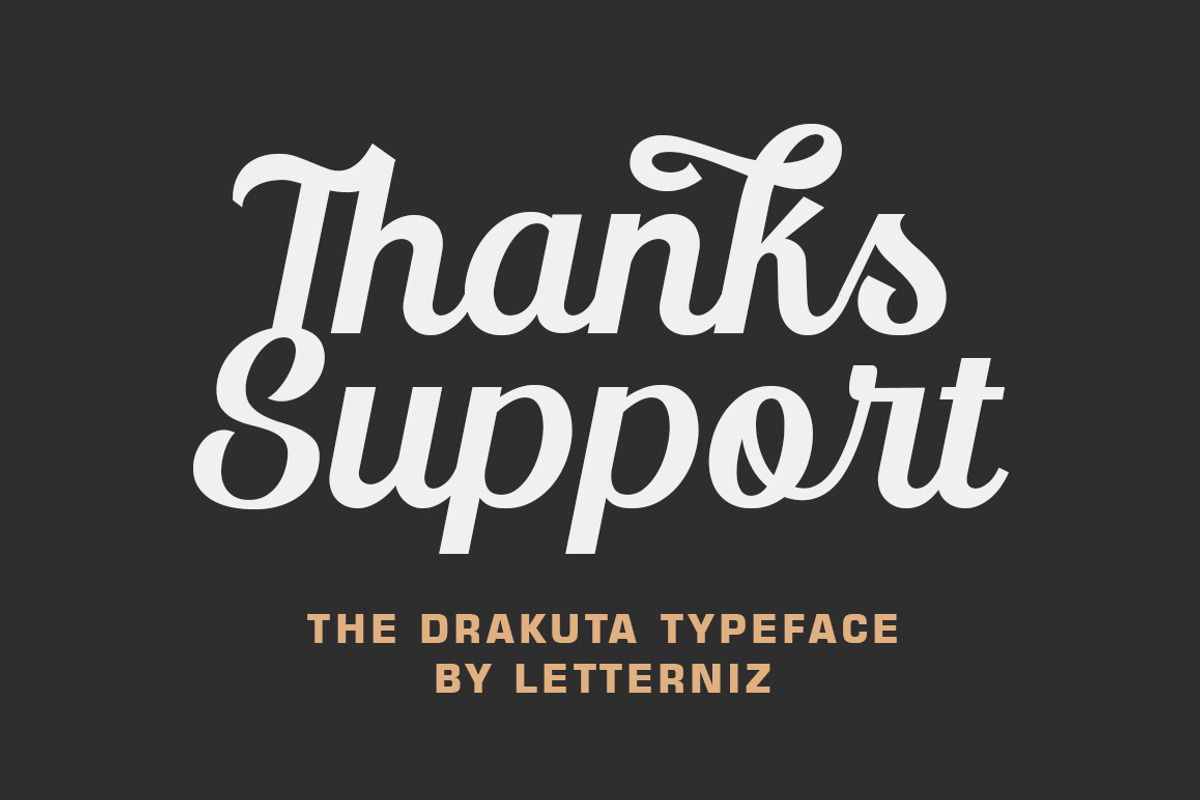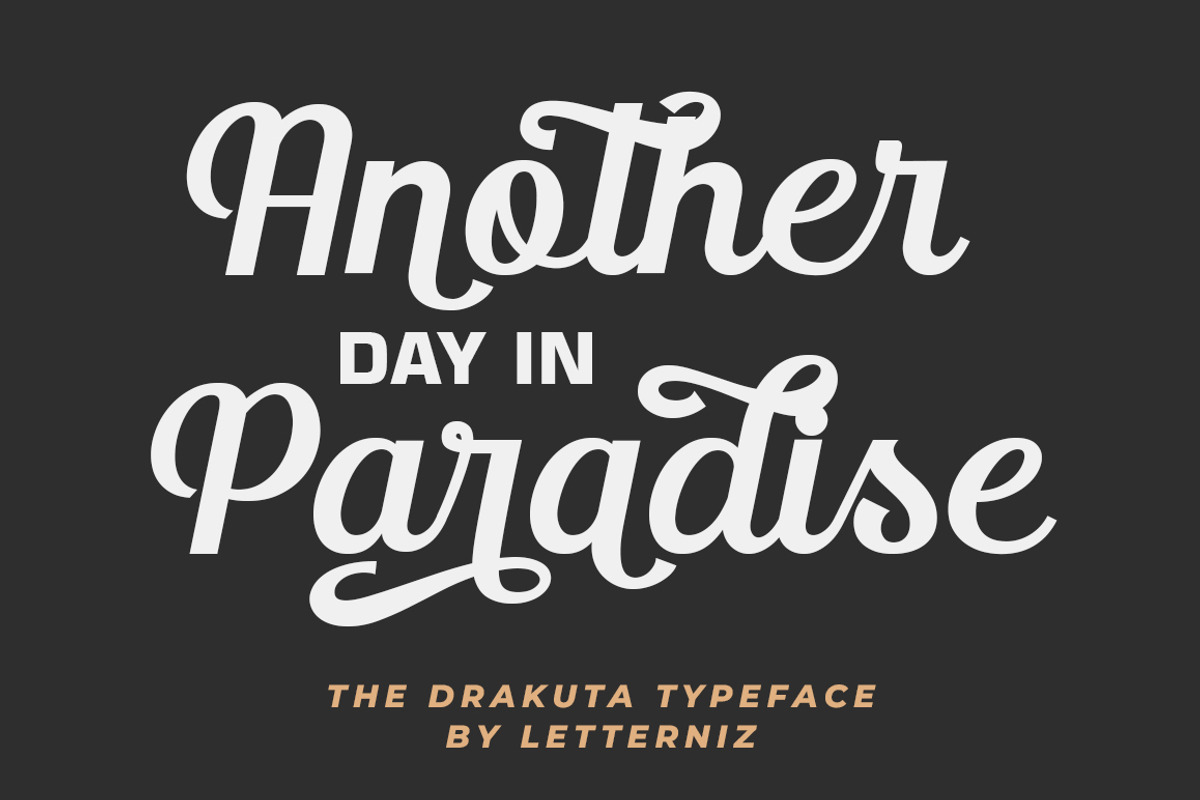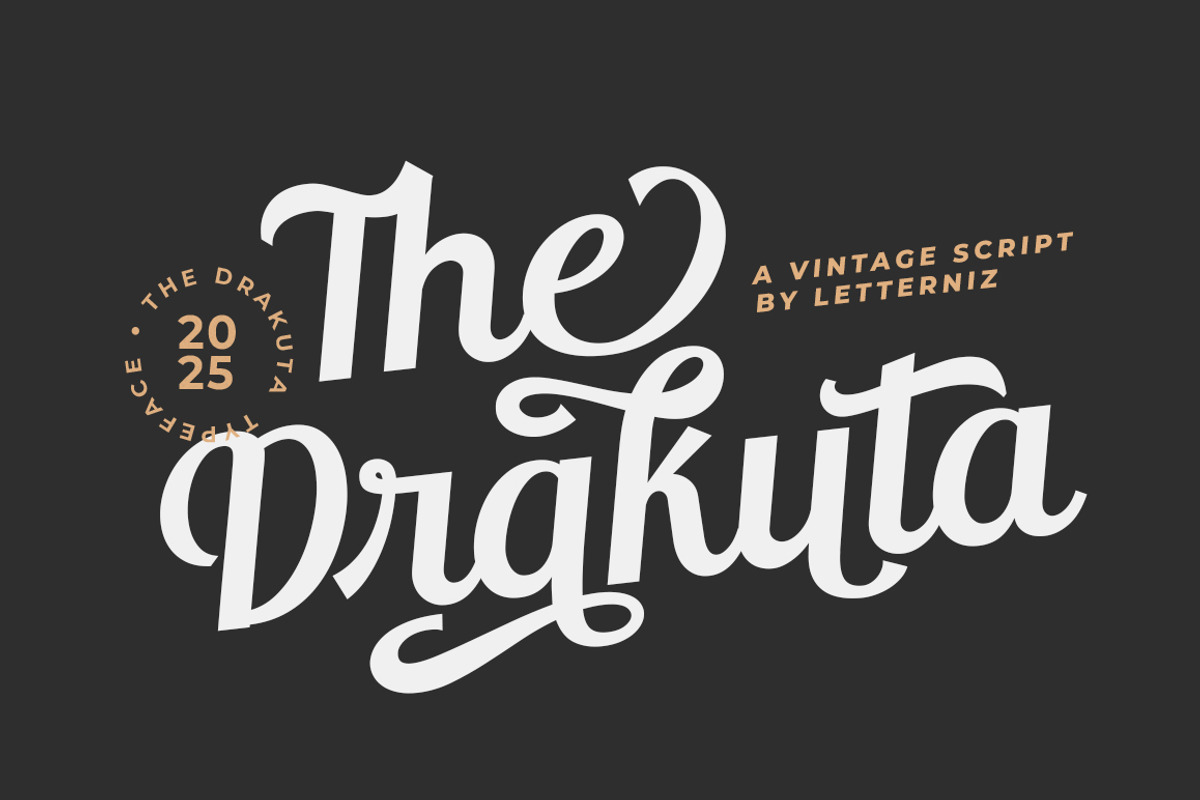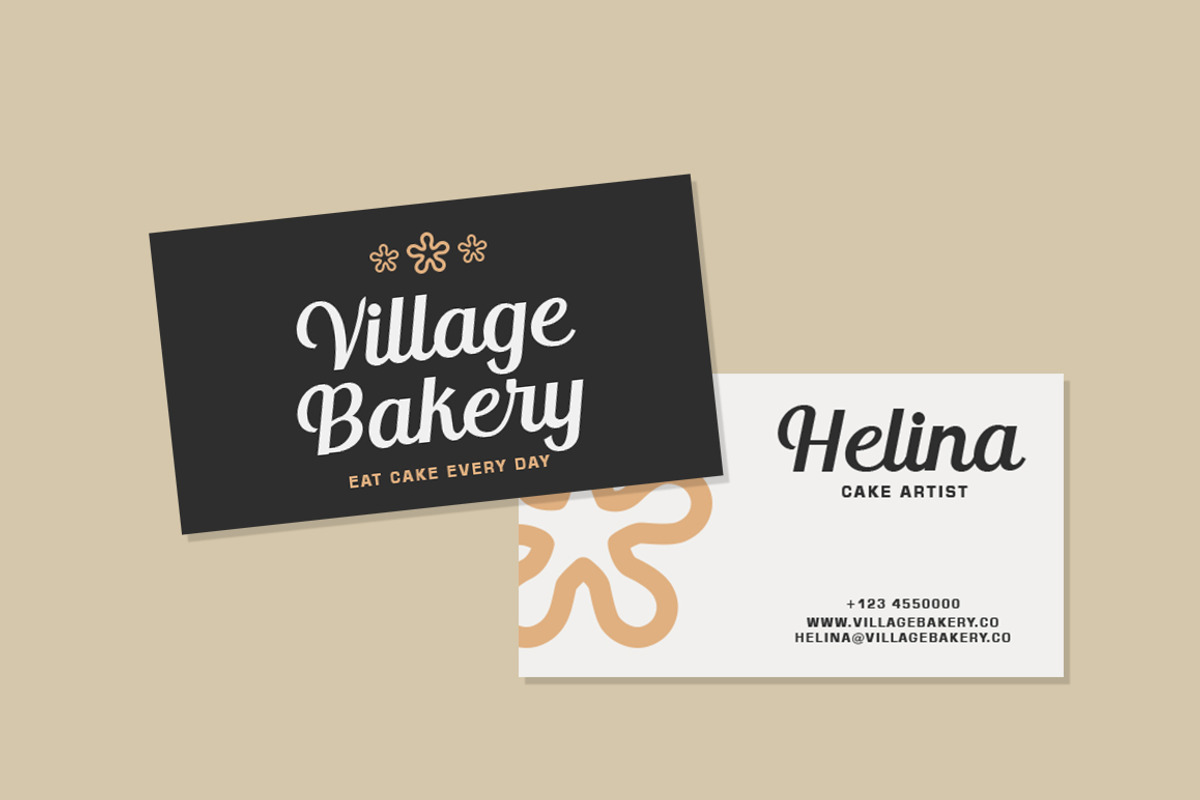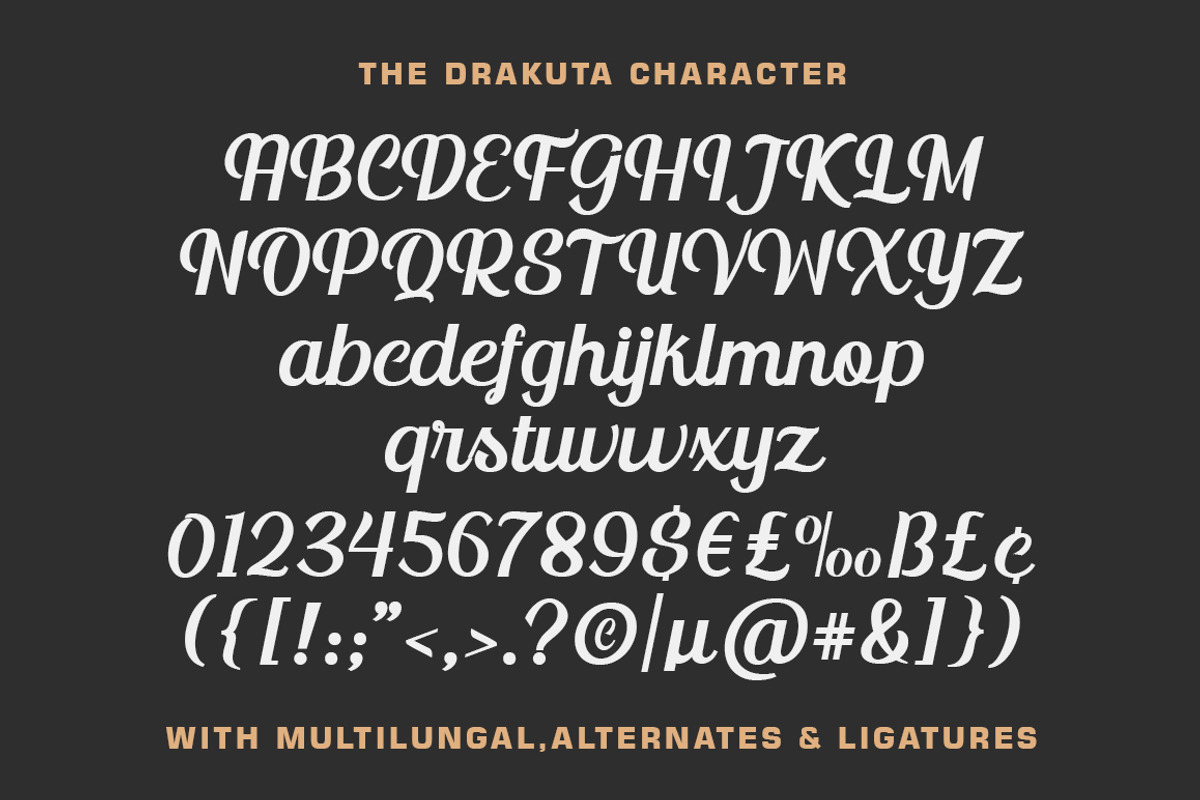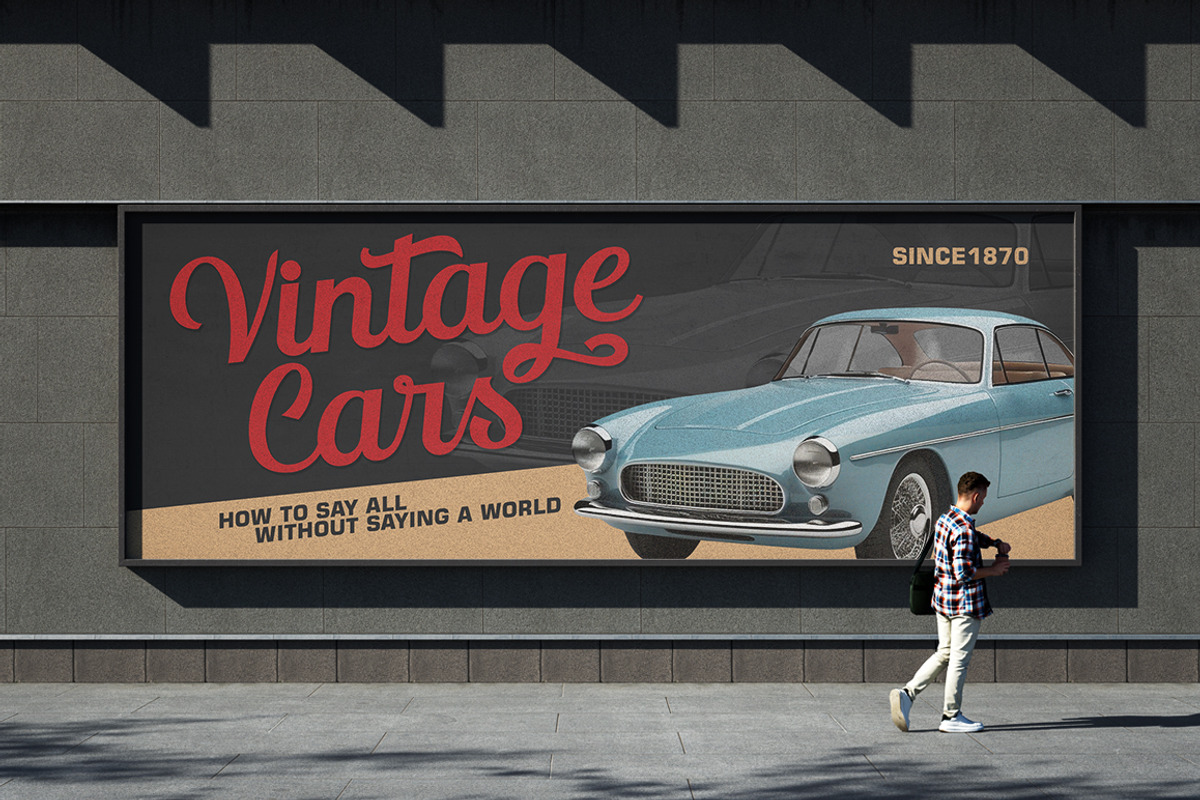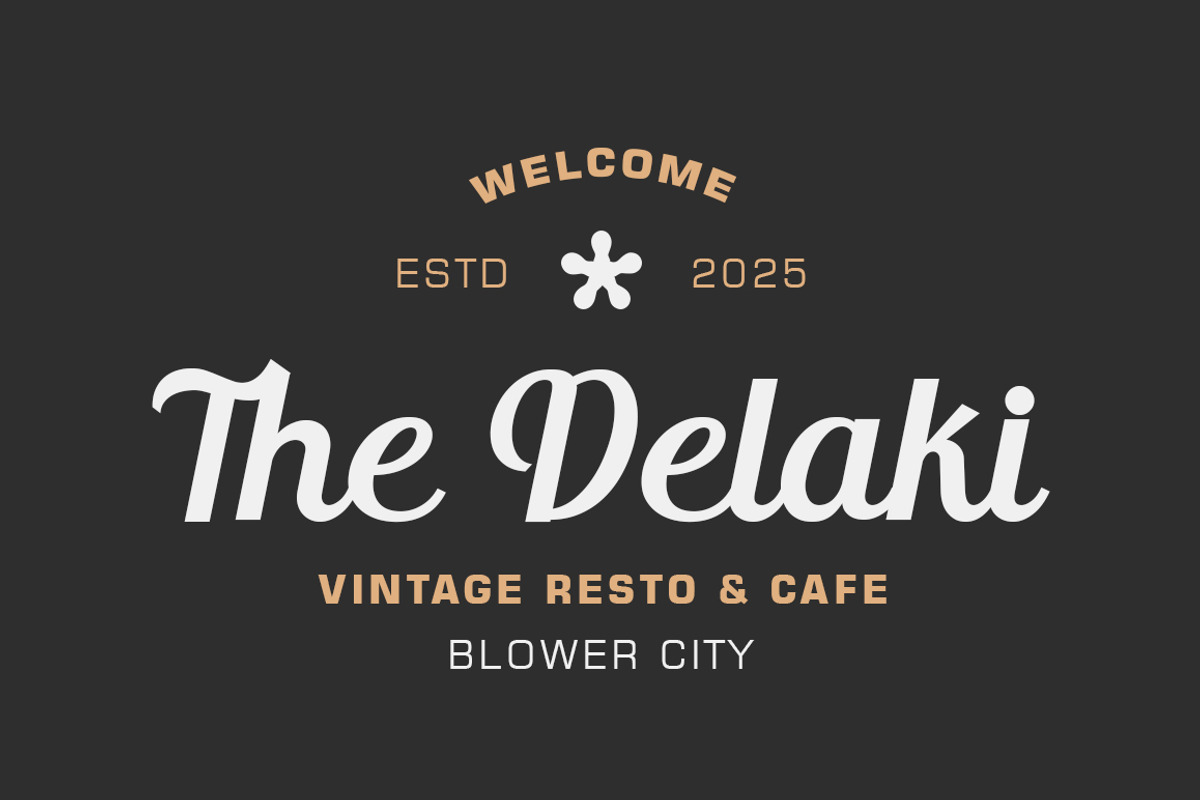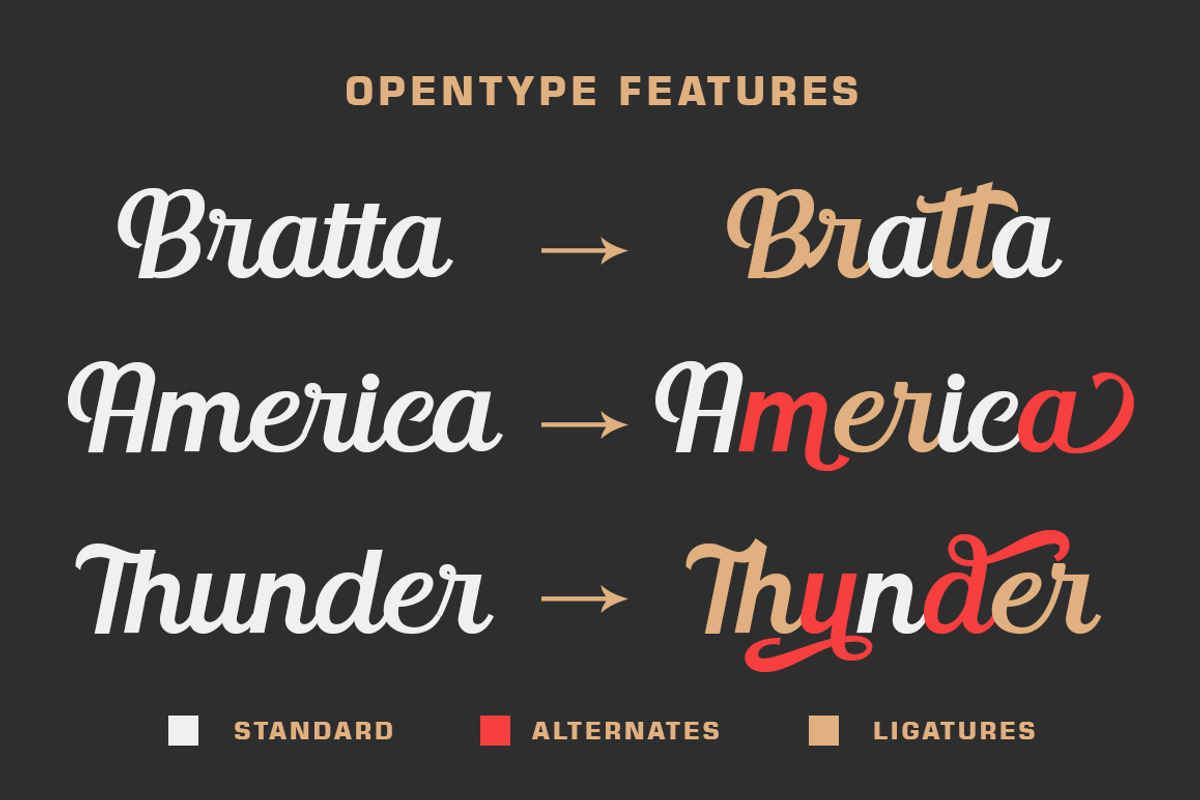
The Drakuta Vintage Script Font
The Drakuta is a vintage script typeface with vintage looks. The Drakuta has lots of alternate characters, ligatures and multilingual support. Suitable for both, modern and classic design projects. The Drakuta is perfect for designing badges, labels, t-shirts, branding, logos, posters, book covers, packaging, and more. You can design beautiful, elegant and diverse typographic elements with it.
Uppercase & lowercase letters
Numerals & punctuation